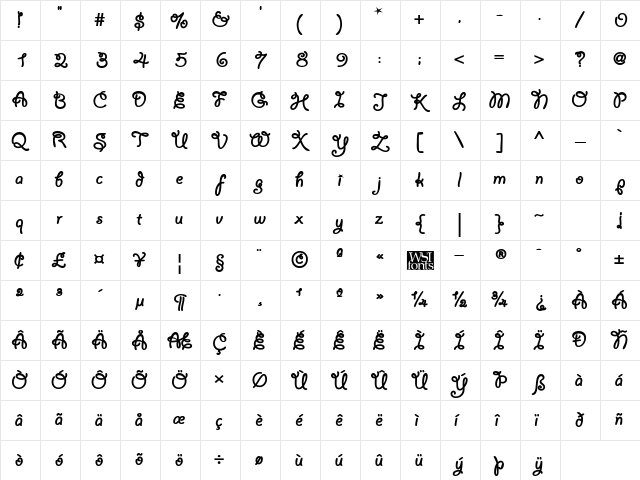
Lariat Regular
Design Context for Lariat
Lariat is a composed and adaptable typeface that performs quietly and consistently across a wide range of design contexts.